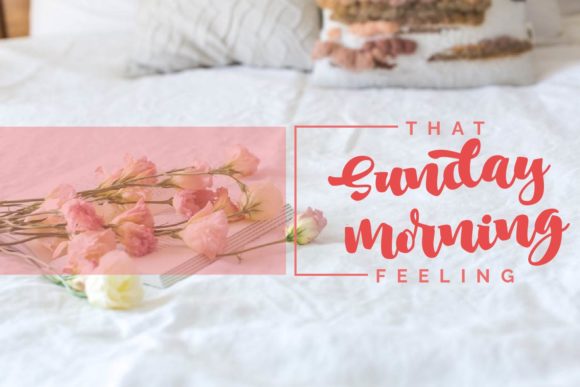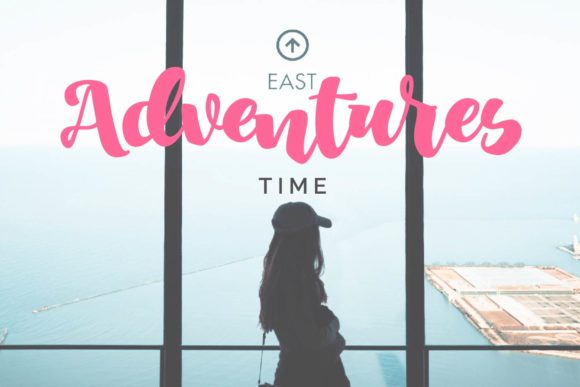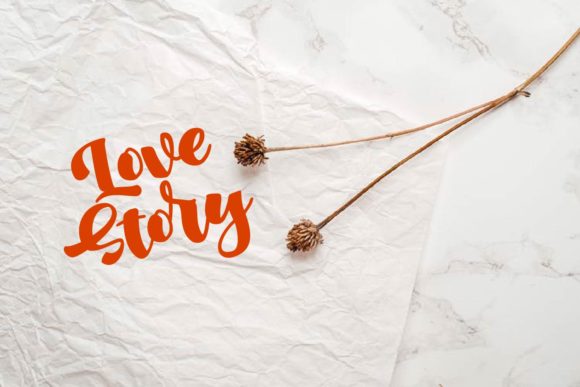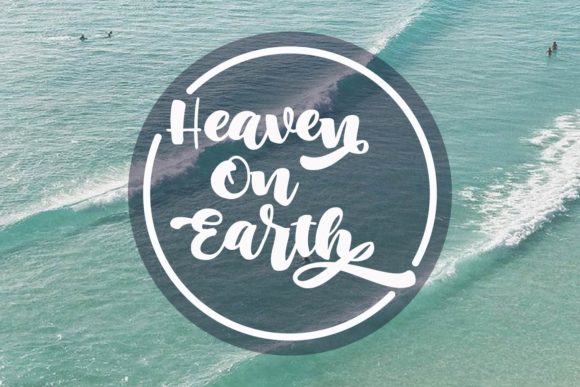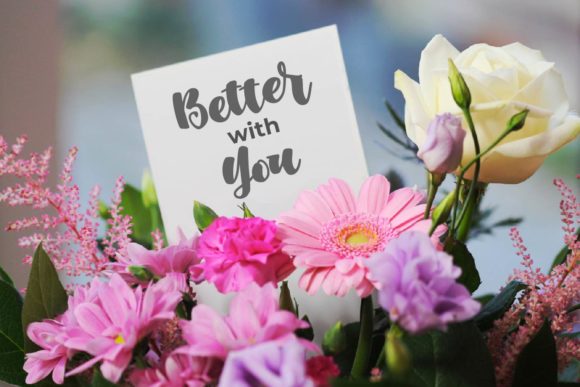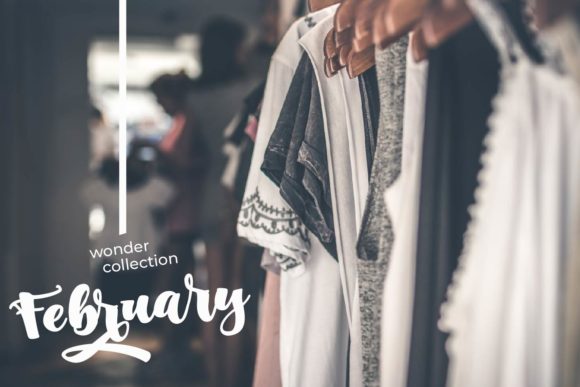
Introduction to Ginger Plum Font
Ginger Plum is an incredibly unique handwritten font.
Key Features of Ginger Plum Font
Why Choose Ginger Plum Font?
Ginger Plum Font offers exceptional quality and versatility, making it a valuable addition to your design toolkit. Whether you’re creating for personal projects or commercial use, Ginger Plum Font delivers professional results.